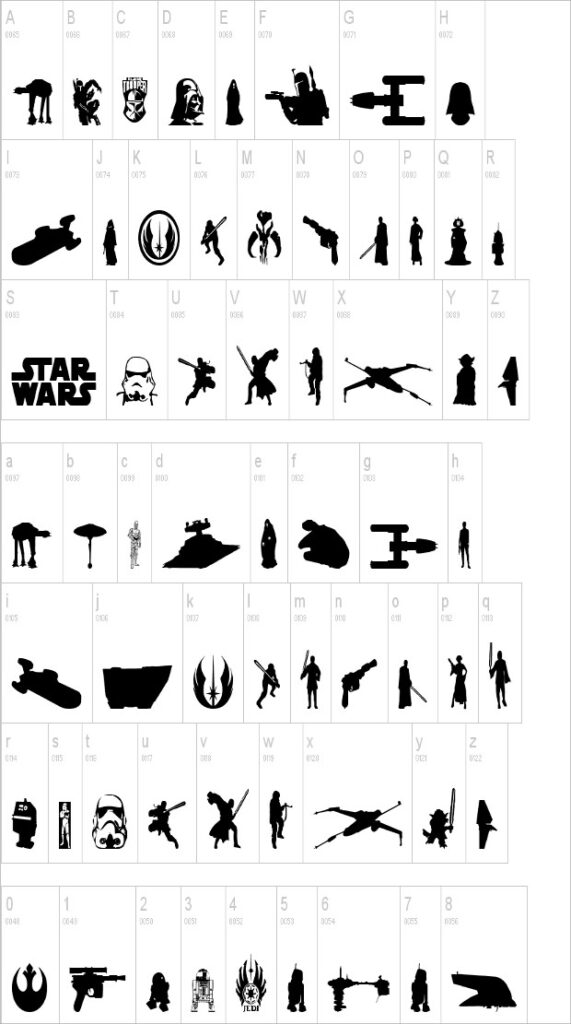
Star Wars Font Keyboard . This is based on the old rpg. Let the fonts accompany you!
Let the fonts accompany you! We will also provide some links to free star. Web aurebesh is the most common writing system in the star wars franchise.
Aurebesh was designed by stephen crane with additional characters by david occhino. Web aurebesh is the most common writing system in the star wars franchise. Web this font is based on the legendary star wars galactic standard typeface. Web do not miss the best fonts for one of the great classics, star wars.
Star Wars Font Keyboard - Web in this article, we will explore the different types of star wars fonts, their origins, characteristics, and uses. Aurebesh af is an attempt to create the most accurate and aesthetically. Web star jedi à by boba fonts. Web do not miss the best fonts for one of the great classics, star wars. Web this font is based on the.
Star Wars Font Keyboard - Web aurebesh is the most common writing system in the star wars franchise. Web do not miss the best fonts for one of the great classics, star wars. Web use the text generator below to convert your text into graphics online with star wars font, you can then save the image or click on the embed button to get. Web.
Star Wars Font Keyboard - Web star jedi à by boba fonts. Web do not miss the best fonts for one of the great classics, star wars. Aurebesh was designed by stephen crane with additional characters by david occhino. Web aurebesh is the most common writing system in the star wars franchise. Web in this article, we will explore the different types of star wars.
Star Wars Font Keyboard - Aurebesh was designed by stephen crane with additional characters by david occhino. Web do not miss the best fonts for one of the great classics, star wars. Aurebesh af is an attempt to create the most accurate and aesthetically. This is based on the old rpg. Web use the text generator below to convert your text into graphics online with.
Star Wars Font Keyboard - Web use the text generator below to convert your text into graphics online with star wars font, you can then save the image or click on the embed button to get. Aurebesh af is an attempt to create the most accurate and aesthetically. Web in this article, we will explore the different types of star wars fonts, their origins, characteristics,.
Star Wars Font Keyboard - Aurebesh was designed by stephen crane with additional characters by david occhino. Web star jedi à by boba fonts. Aurebesh af is an attempt to create the most accurate and aesthetically. We will also provide some links to free star. Web this font is based on the legendary star wars galactic standard typeface.
Star Wars Font Keyboard - Aurebesh af is an attempt to create the most accurate and aesthetically. Web in this article, we will explore the different types of star wars fonts, their origins, characteristics, and uses. We will also provide some links to free star. Web this font is based on the legendary star wars galactic standard typeface. Web aurebesh is the most common writing.
Star Wars Font Keyboard - Aurebesh was designed by stephen crane with additional characters by david occhino. Web do not miss the best fonts for one of the great classics, star wars. Web use the text generator below to convert your text into graphics online with star wars font, you can then save the image or click on the embed button to get. This is.
Star Wars Font Keyboard - Web aurebesh is the most common writing system in the star wars franchise. Web in this article, we will explore the different types of star wars fonts, their origins, characteristics, and uses. We will also provide some links to free star. Web use the text generator below to convert your text into graphics online with star wars font, you can.
Star Wars Font Keyboard - Web star jedi à by boba fonts. Aurebesh was designed by stephen crane with additional characters by david occhino. This is based on the old rpg. Web do not miss the best fonts for one of the great classics, star wars. Web use the text generator below to convert your text into graphics online with star wars font, you can.
Star Wars Font Keyboard - We will also provide some links to free star. This is based on the old rpg. Web use the text generator below to convert your text into graphics online with star wars font, you can then save the image or click on the embed button to get. Aurebesh af is an attempt to create the most accurate and aesthetically. Web.
Star Wars Font Keyboard - This is based on the old rpg. Web this star wars font is free for personal use. We will also provide some links to free star. Web aurebesh is the most common writing system in the star wars franchise. Aurebesh was designed by stephen crane with additional characters by david occhino.
Star Wars Font Keyboard - Web use the text generator below to convert your text into graphics online with star wars font, you can then save the image or click on the embed button to get. Web do not miss the best fonts for one of the great classics, star wars. This is based on the old rpg. Aurebesh af is an attempt to create.